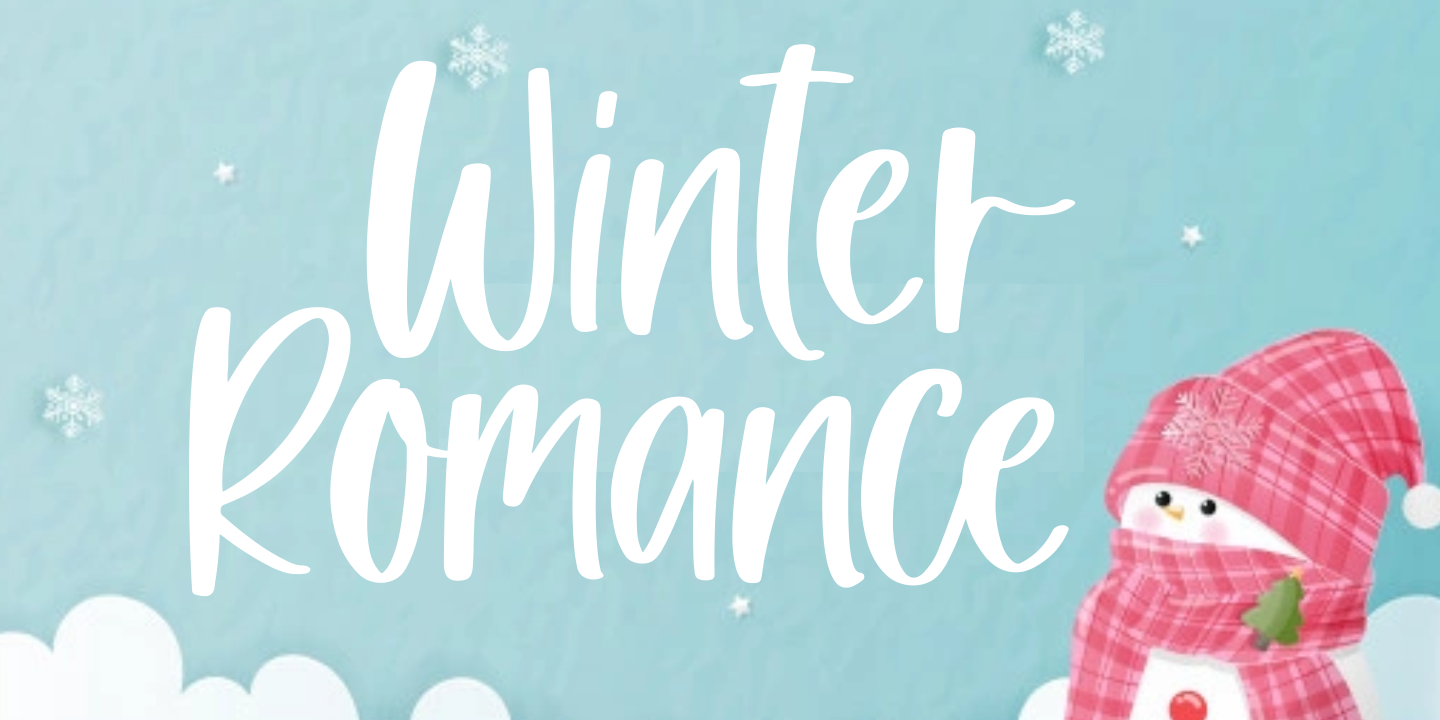
Winter Romance Font Free Download – Elegant and Romantic Typeface for Magical Designs
Searching for a font that captures the enchantment of winter and romance? Winter Romance Font Free Download is the perfect choice. This beautiful script typeface features flowing lines and delicate details, ideal for wedding invitations, holiday cards, branding, and elegant editorial projects.
Winter Romance adds a soft, graceful touch to any design, evoking feelings of warmth and love even in the coldest seasons. Whether you’re crafting logos, headlines, or decorative text, this font brings a dreamy and sophisticated vibe.
Elevate your typography with Winter Romance — a font that turns your designs into a heartfelt winter tale.